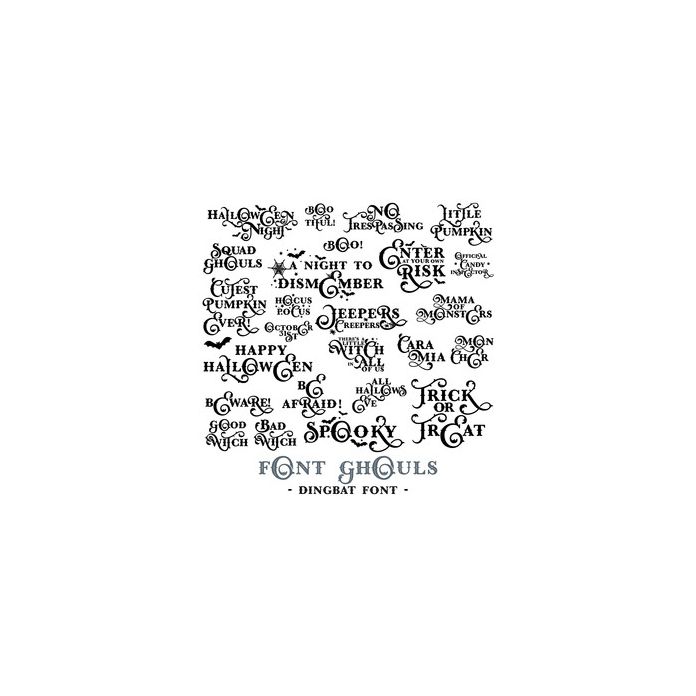
Font Ghouls fancy Halloween Quote Dingbat Font. Includes 26 Halloween quotes. All are assigned to an upper case letter starting with 'A' or can be accessed via glyphs. For more design ideas, coordinating designs & products and inspiration, please visit my blog http://www.sarahhurleyblog.com